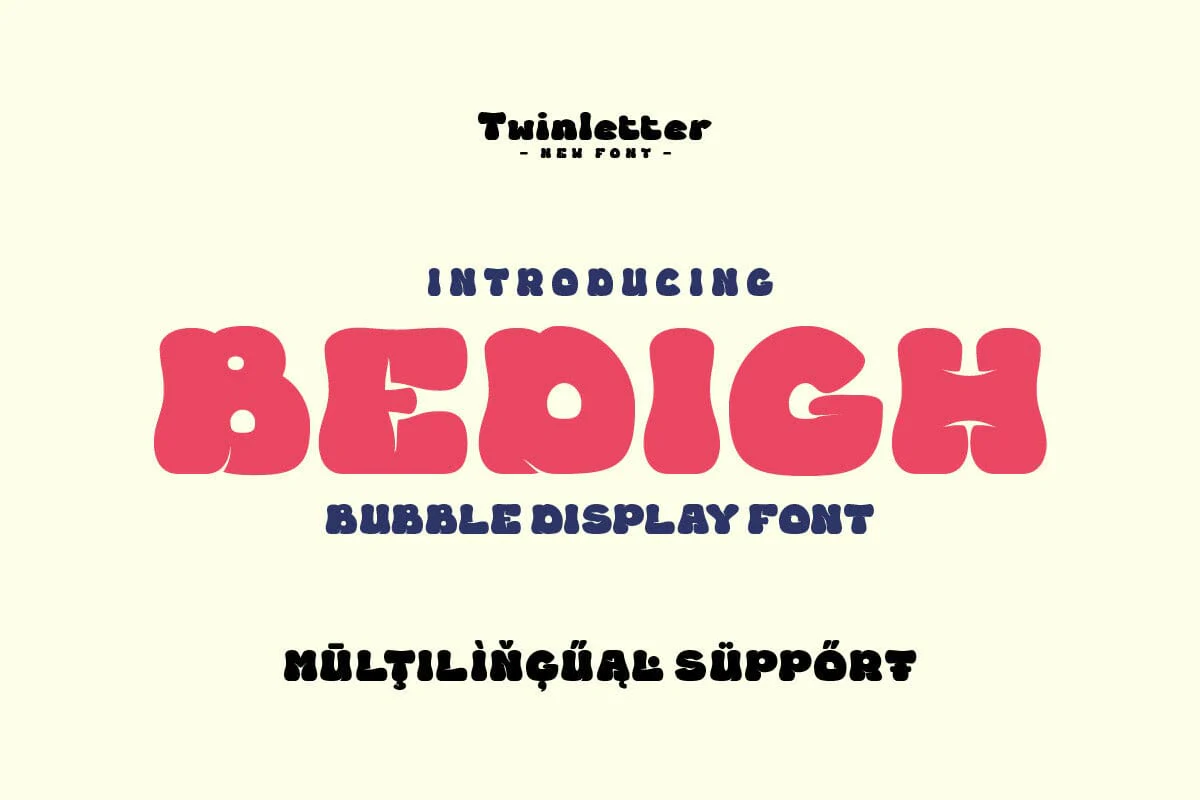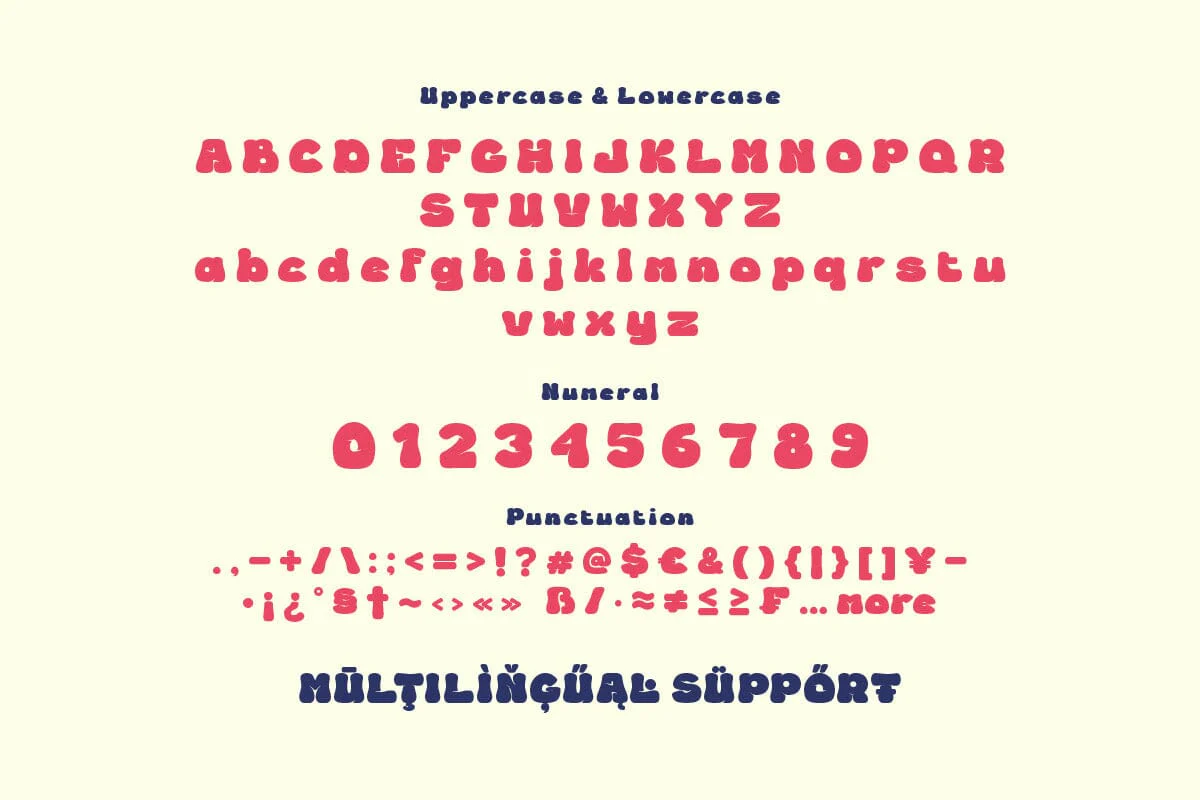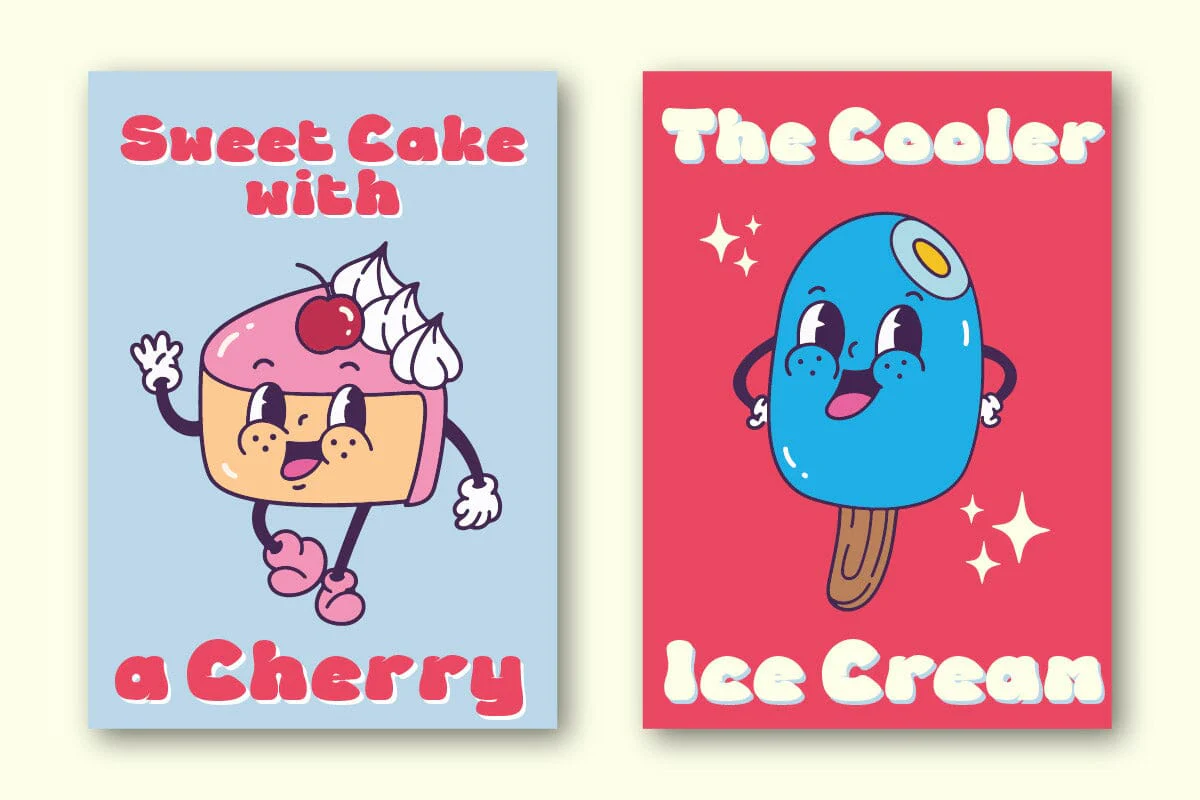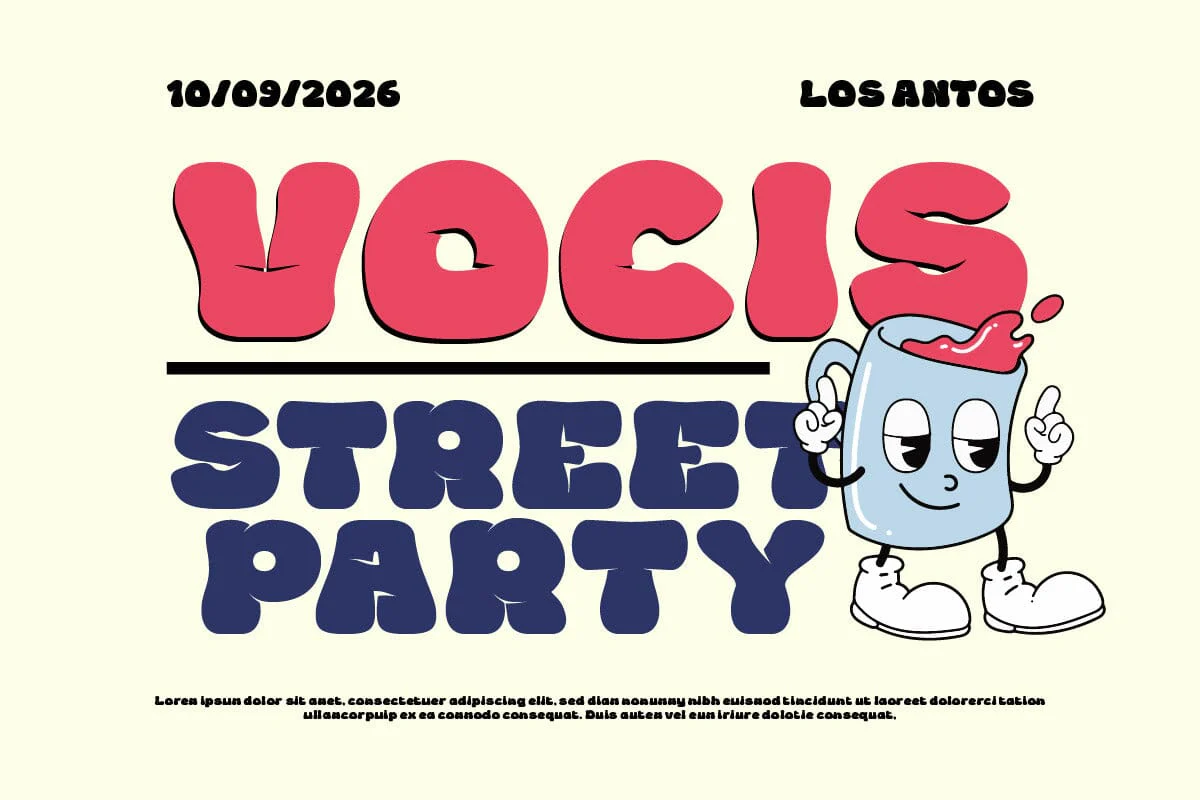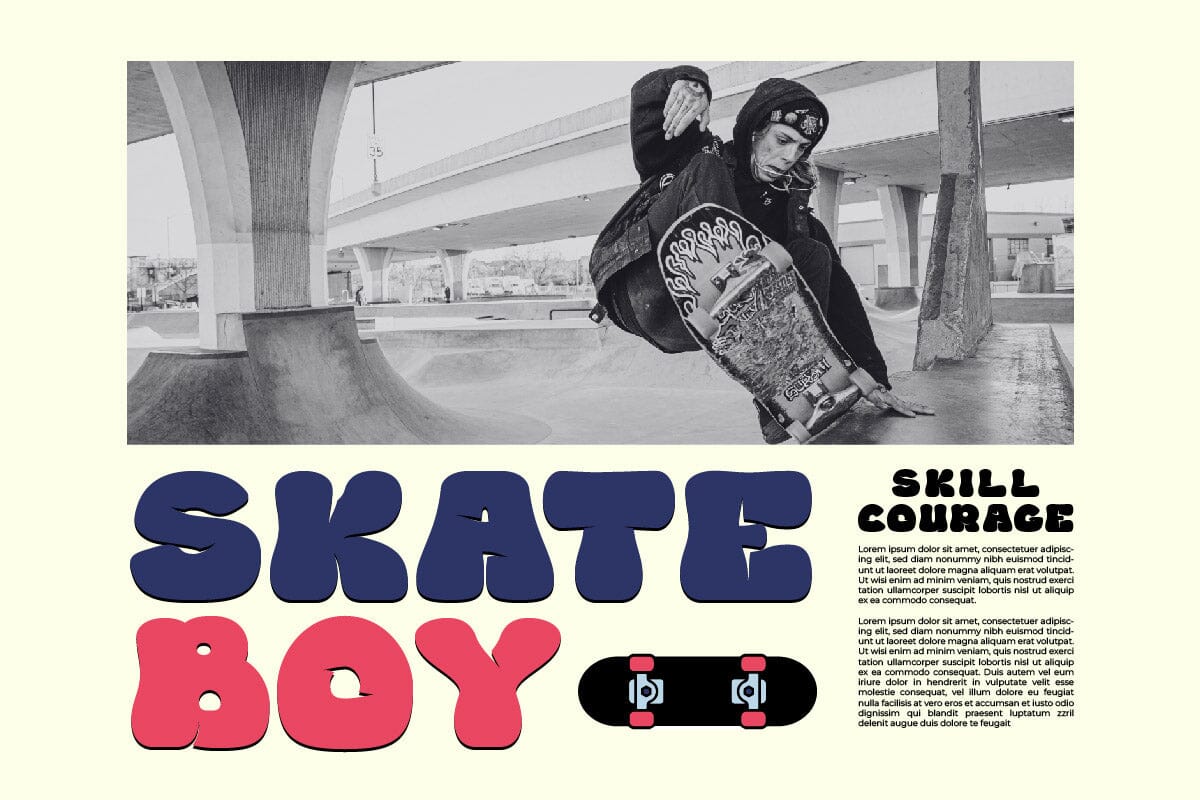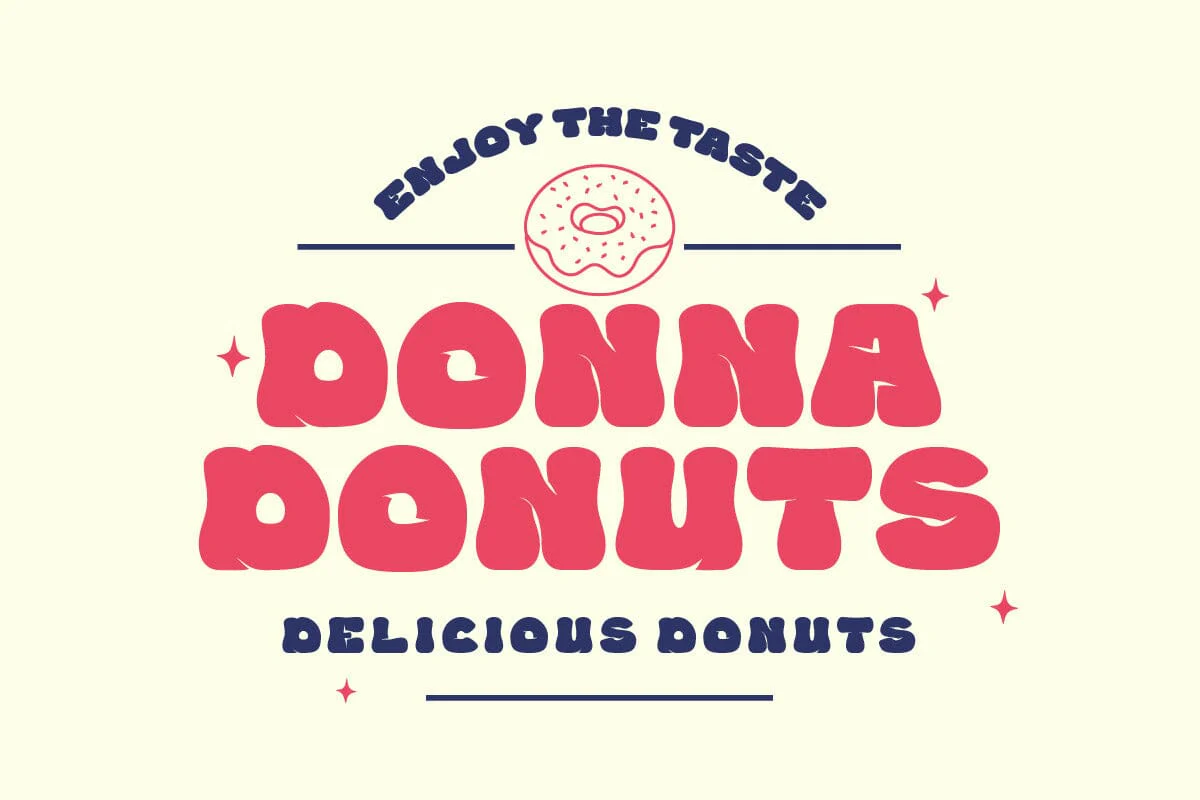
Bedigh - Buble Display Font
Get ready to add a pop of personality to your designs with Bedigh, our bubbly and cheerful Bubble Display Font. Each letter is like a playful bubble, floating effortlessly across the page and bringing a sense of lightness and happiness to your projects. Whether you're designing party invitations, signage for a fun event, or playful branding materials, Bedigh is sure to make a statement. Its friendly appearance and whimsical vibe make it perfect for capturing the attention of audiences of all ages. Incorporating Bedigh into your designs is guaranteed to bring a smile to people's faces and create memorable experiences that they'll cherish.